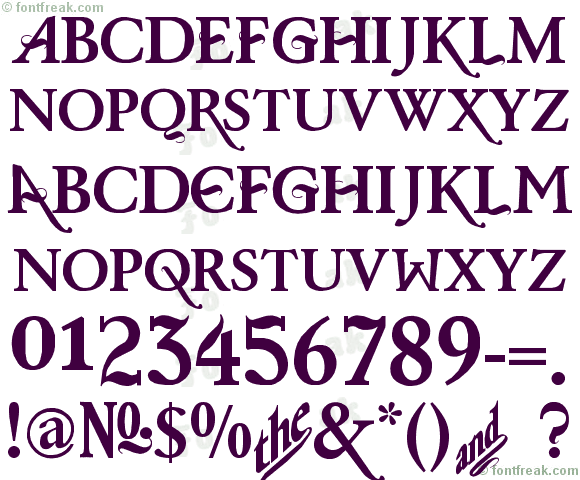
Baris Cerin Regular
About Baris Cerin Regular
Baris Cerin Regular, designed by Bolt Cutter, is a striking display font that falls into the decorative category. This typeface showcases a unique blend of artistic flair and readability, making it an excellent choice for a variety of design projects. The font features a moderate stroke weight that balances elegance with legibility, while the contrast between the thick and thin strokes adds a dynamic quality to the overall appearance. Its spacing is thoughtfully crafted, providing clarity without sacrificing style, and the decorative elements, including playful curves and whimsical serifs, contribute to its distinctive charm.
This font is ideal for several specific applications. For those in the wedding industry, Baris Cerin Regular is perfect for crafting elegant wedding invitations that demand attention. Its artistic nature makes it an excellent choice for movie posters, where it can evoke the intended mood of a film. Additionally, restaurant menus can benefit from its decorative qualities, enhancing the overall dining experience. Content creators and graphic designers will find this font especially useful for branding projects, as it can effectively convey personality and creativity.
Targeted primarily at graphic designers, small business owners, and content creators, Baris Cerin Regular offers a versatile option for those looking to enhance their visual communications.
Overall, Baris Cerin Regular stands out due to its unique combination of artistic elements and functional design. The font's ability to captivate and engage audiences makes it a valuable addition to any designer's toolkit. For those interested in adding a touch of creativity to their projects, the Baris Cerin Regular font free download is an opportunity not to be missed.